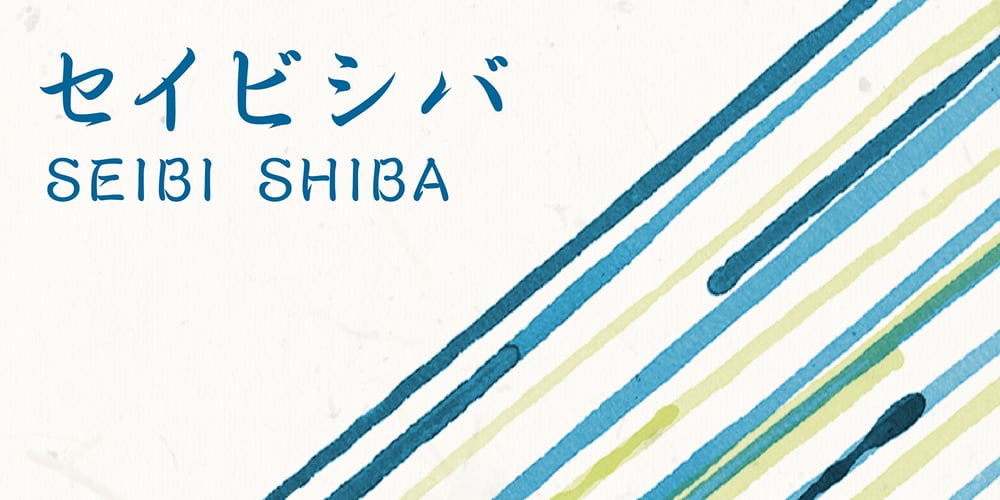
Seibi Shiba
Seibi Shiba font
Seibi Shiba Font Family was designed by published by Nihon Literal. Seibi Shiba contains 3 styles and family package options. Although it is an orthodox semi-cursive script, Kana is designed to be somewhat larger for better line alignment and is tailored to both horizontal and vertical typesetting. Bold can be selected for the subheading, body text, or headline. オーソドックスな行書体ですが、タテ組ヨコ組両方に適した書体となるよう、仮名をやや大きめにデザインし、ライン揃えを意識しました。独特の組み版効果が特徴です。太さに合わせて、小見出し用から本文、大見出し用に活用いただけます。一筆書きの脈絡を多用し、続け書きによる「連綿線」を持つ書体です。行書体の特徴である流れるような筆の運びを表現できるよう心がけました。同じ部首でも「へん」と「つくり」で処理が異なる字があるのは行書体の特徴でもあります。